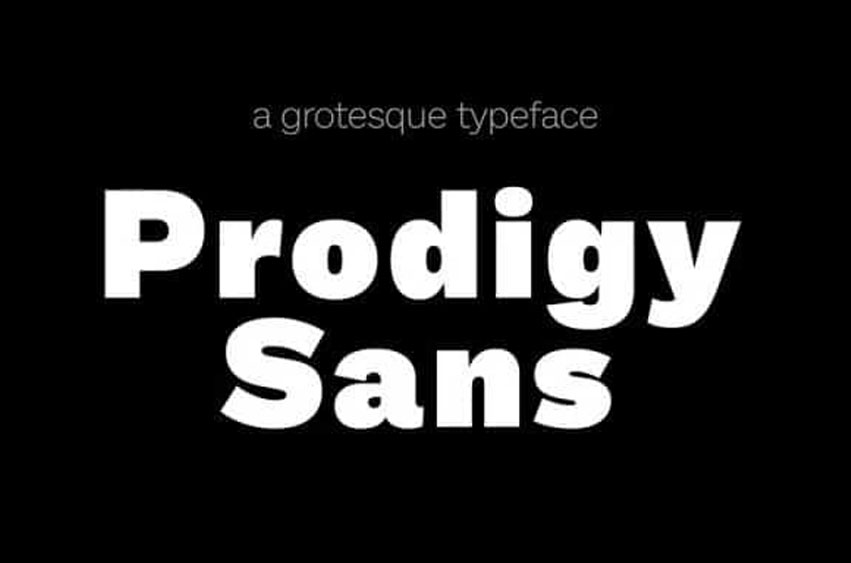
Prodigy Sans Font
Prodigy Sans Font With a slightly more rectangular approach and some clever detailing, Prodigy Font has a distinct look of its own, yet provokes a calming familiarity of neutrality and objectiveness.
As goes without saying, it’s also equipped with a sensible amount of features that make it a true, versatile workhorse.